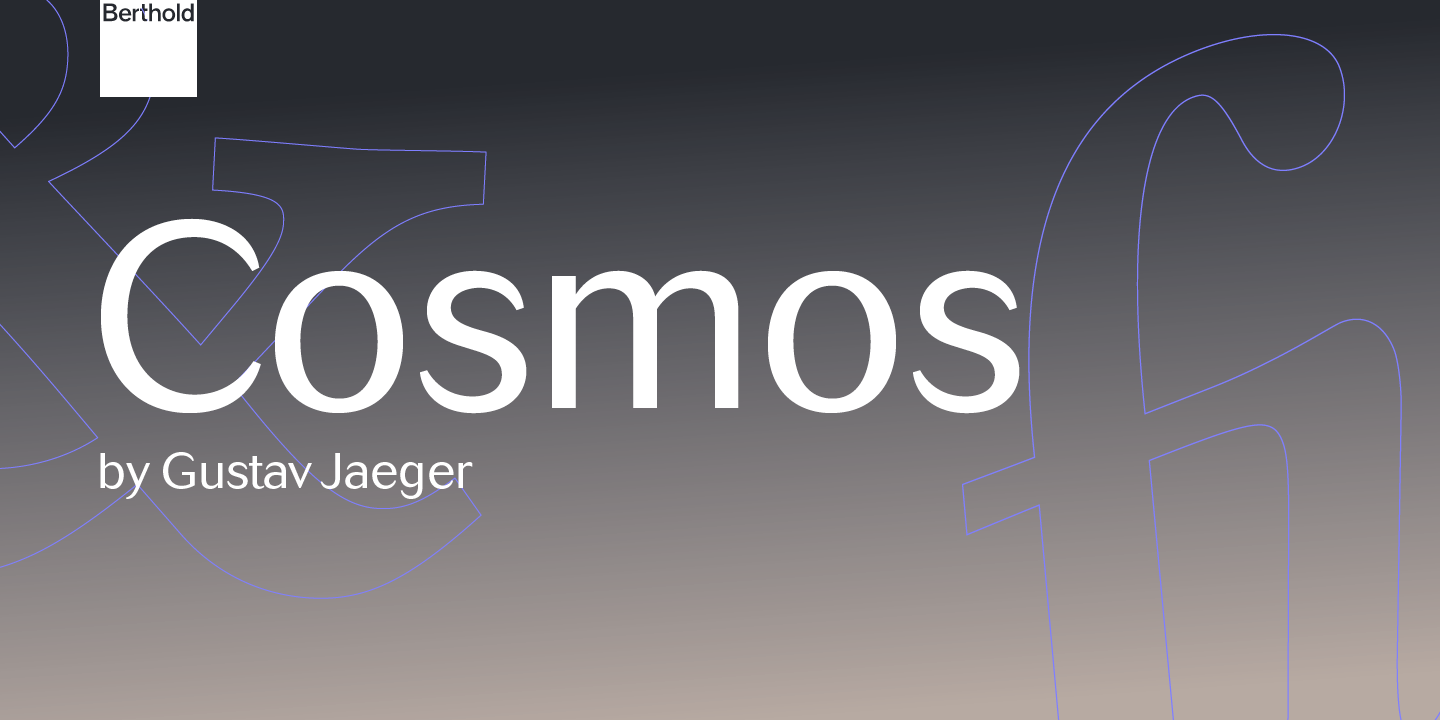
Cosmos Font excels in space-age design applications including astronomy observatory branding, science fiction movie posters, planetarium exhibit materials, space exploration presentations, cosmic-themed gaming interfaces, astronomical research publications, futuristic technology companies, space tourism marketing, stellar photography portfolios, and interstellar adventure campaigns. This otherworldly typeface brings galactic majesty to visionary design projects.
What makes Cosmos Font truly exciting is its perfect capture of infinite space with letterforms that evoke stellar formations and cosmic phenomena through elegant geometric construction. The font features expansive character shapes with celestial proportions and starlike details that create sense of wonder and astronomical scale. Its cosmic personality and universal appeal make it ideal for brands exploring themes of discovery, infinite possibility, and audiences fascinated by the mysteries of space, scientific exploration, and humanity's cosmic destiny.
The Cosmos Font family typically includes multiple weights such as Light, Regular, Medium, and Bold with potential outline variations that enhance its stellar character. These astronomical options provide designers with complete cosmic styling while maintaining the font's distinctive celestial elegance and interstellar presentation across various space-themed applications and scientific contexts.
Whether you're developing astronomical branding, creating space exploration campaigns, or designing cosmic marketing materials, Cosmos Font Free Download provides the celestial authority and universal sophistication that space-focused projects require. Its exceptional grandeur and cosmic appeal make it invaluable for designers working with science museums, astronomy organizations, and space-related companies requiring typography that celebrates cosmic exploration, scientific discovery, and the infinite beauty of the universe that inspires wonder and curiosity.